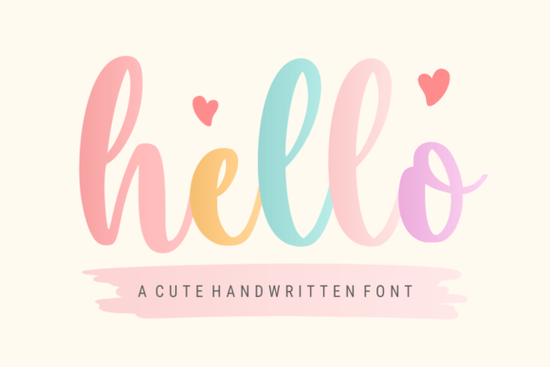
Hello Font is a handwritten script font that works well for projects needing a delicate, personal touch. With its balanced letterforms and natural flow, it's suitable for everything from greeting cards and wedding invitations to quotes, stickers, and image overlays. If you work with typography regularly, this is one of those script fonts that feels both approachable and versatile.
What kinds of projects suit Hello Font best?
Because Hello Font has a soft, friendly character, it fits naturally into designs that want to feel warm and handmade. Think about wedding stationery, save-the-dates, birthday cards, or Christmas greetings. It also works well for quote graphics on social media, blog headers, and branding materials for small businesses especially those in the handmade, baking, or lifestyle space.
For print-on-demand sellers, this font can be used on products like mugs, t-shirts, tote bags, and phone cases. The delicate strokes make it a good choice for stickers and labels too. When paired with a clean sans-serif font, it creates a nice contrast that works for both headings and short body text.
How does Hello Font compare to other handwritten fonts?
There are many handwritten fonts available, but Hello Font stands out for its readability. The letterforms are carefully drawn not too decorative, not too plain. This makes it legible even at smaller sizes, which is useful for product labels or social media graphics where space is limited.
What design styles match Hello Font well?
Hello Font works with a range of aesthetics. It suits minimalist layouts where the typography becomes the focal point. It also complements vintage or rustic themes think kraft paper textures, muted colors, and natural elements. For holiday projects like Christmas cards or birthday invitations, this font adds a friendly feel without being overly themed.
For branding, this style works particularly well for businesses that want to communicate warmth and approachability. It layers nicely over photographs, making it useful for quote cards, blog headers, and social media content.
Where can I find more fonts similar to Hello Font?
When choosing fonts, think about the mood you want to create. Hello Font leans toward delicate and cute, while other script fonts might be bolder or more casual. Having a few options in your toolkit lets you match the tone exactly to your project.
What are the best ways to use Hello Font in your designs?
Here are some practical tips for getting the most out of this font:
- Pair it with a simple sans-serif font for contrast use Hello Font for headings and a clean font like Montserrat or Lato for body text.
- Adjust tracking (letter spacing) slightly wider for lowercase text to improve readability, especially at smaller sizes.
- Test it on different backgrounds light backgrounds with subtle texture tend to show the delicate strokes best.
- Use it for short phrases or single words rather than long paragraphs to keep the handwritten feel impactful.
- Layer it over images with a soft shadow or outline to make the text stand out without losing the handwritten charm.
Before committing to Hello Font, test it with a few phrases you'll actually use. Type out a greeting, a product name, or a quote and see how it looks at different sizes. Fonts can behave differently on screen versus in print, so testing early saves time later. If you're working on a commercial project, check the licensing terms Creative Fabrica offers commercial licenses for most of its fonts, including Hello Font.